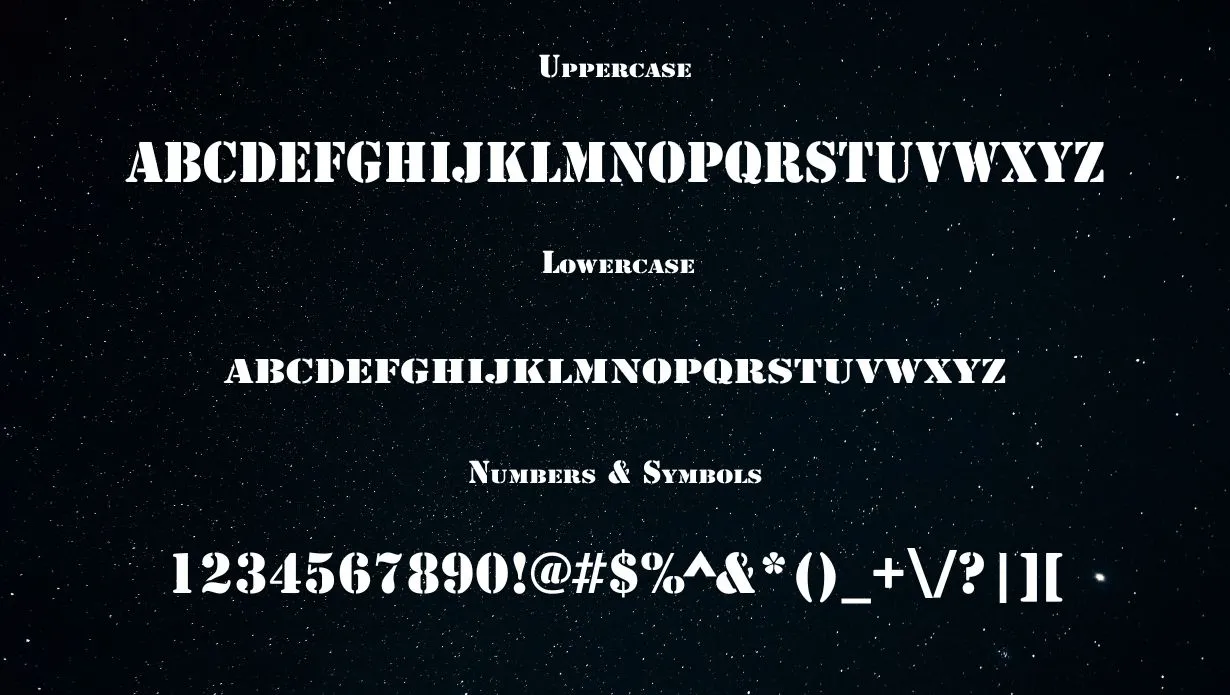
The Stenciled font is characterized by its military or industrial vibe, reminiscent of letters stenciled onto crates or equipment. This display typeface offers a rugged and robust appearance, making it a popular choice for action movie posters, industrial branding, or designs that aim for a tough aesthetic.
| Name | Stenciled Font |
| Designer | R. Hunter Middleton |